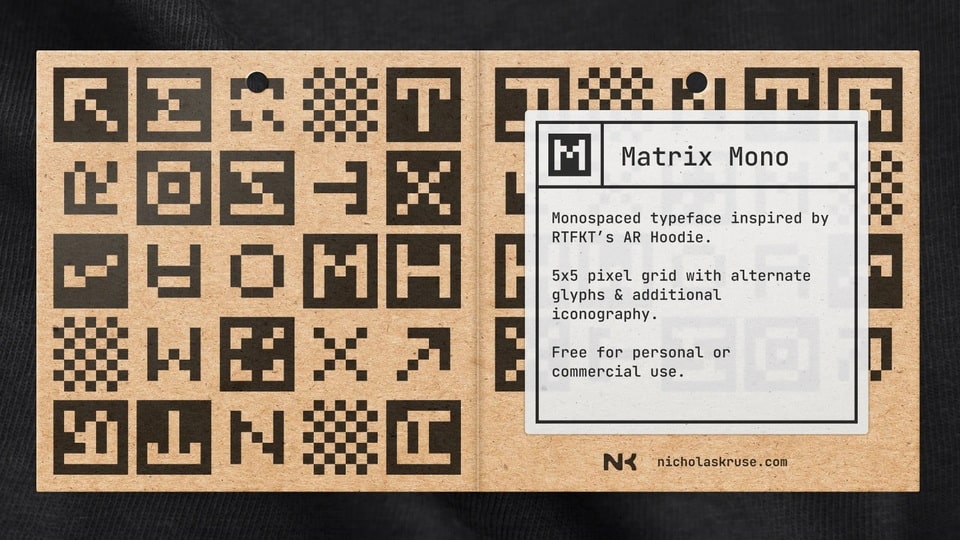
Download Matrix Mono font, a 5×5 pixel monospace typeface created as an alternative to other pixel typefaces with unique character glyphs and additional iconography.
Designer: Nicholas Kruse